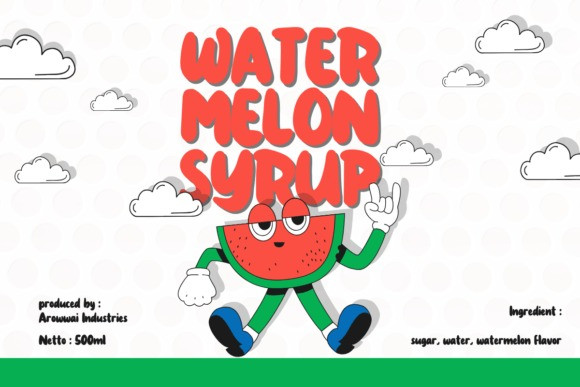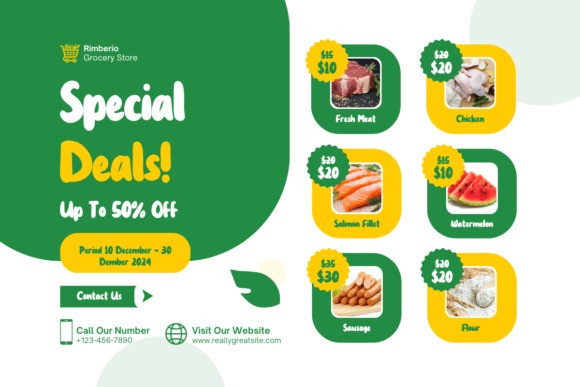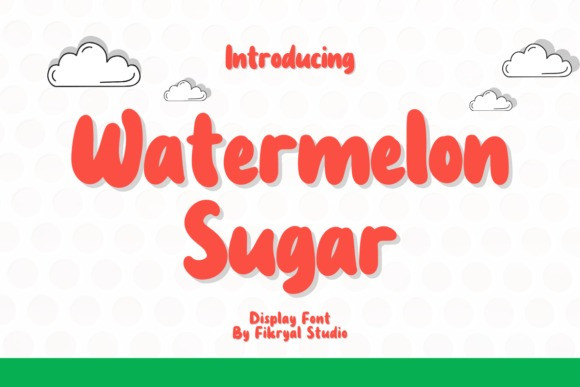
Watermelon Sugar Font
Watermelon Sugar Font  is a fun and vibrant handwritten display font, perfect for adding a playful touch to your designs. With its authentic hand-drawn charm, this font is ideal for summer-themed projects, children’s books, social media graphics, and more.